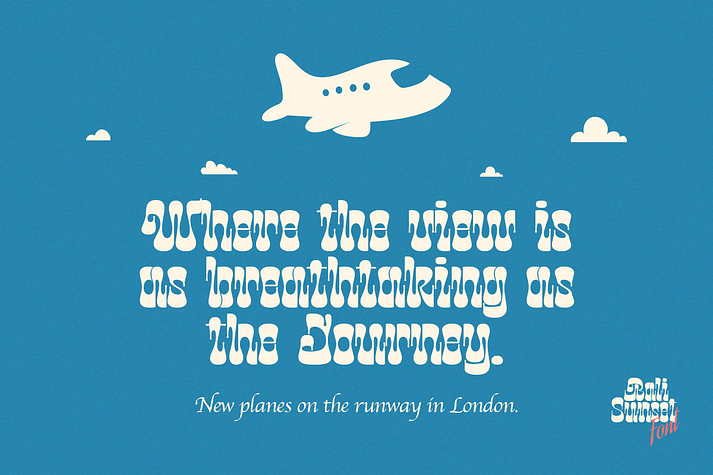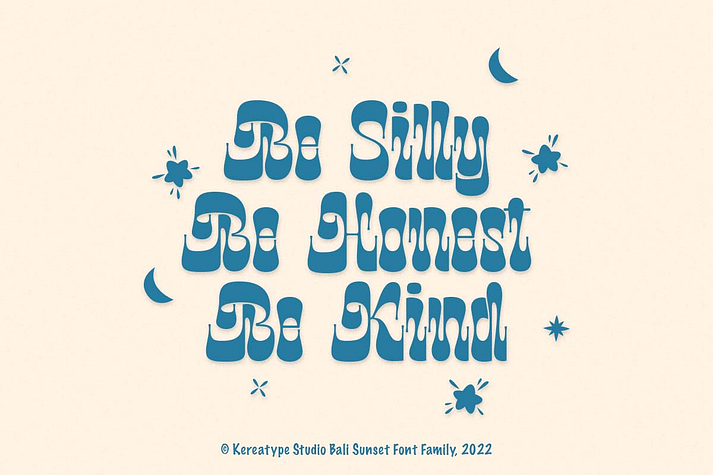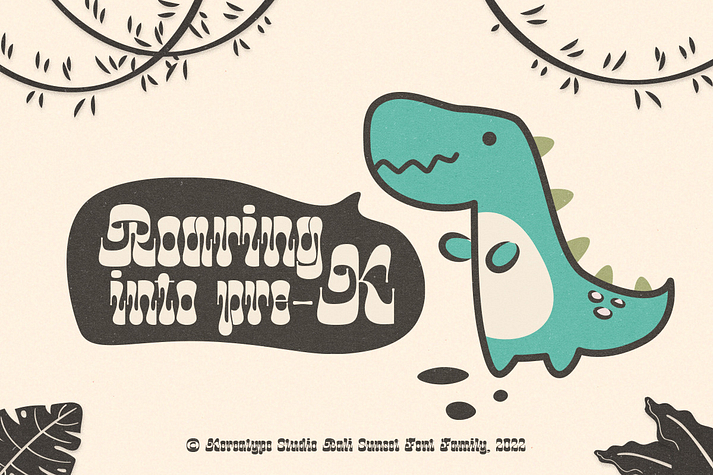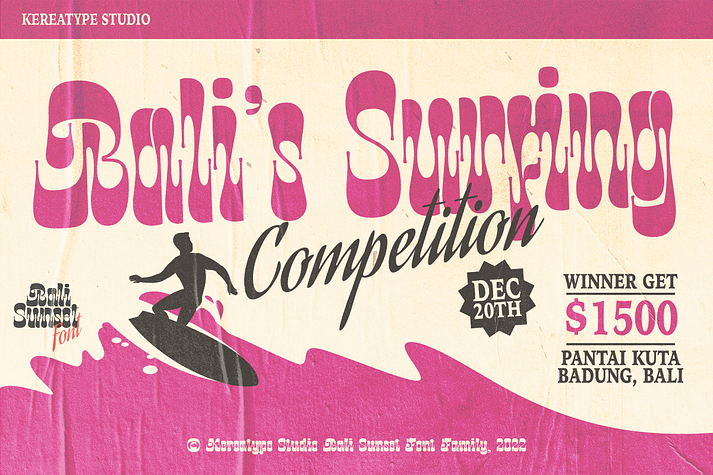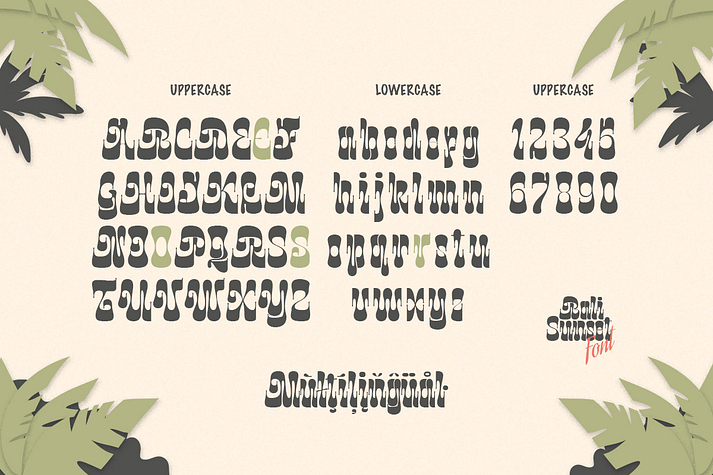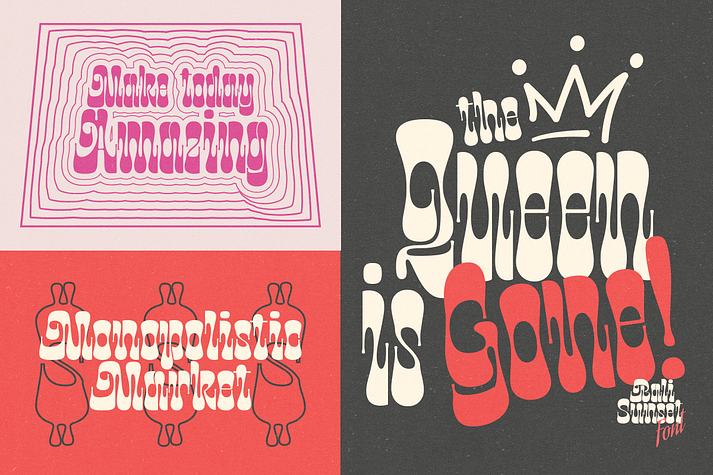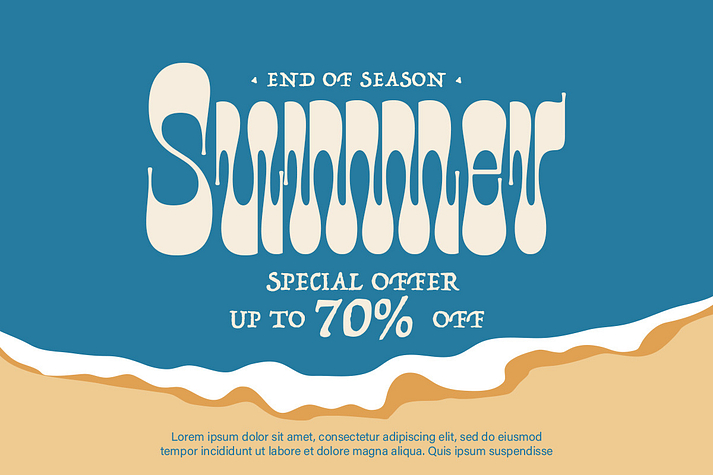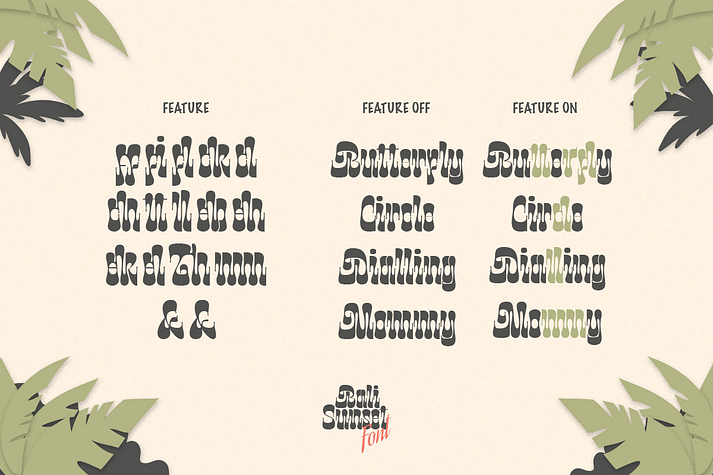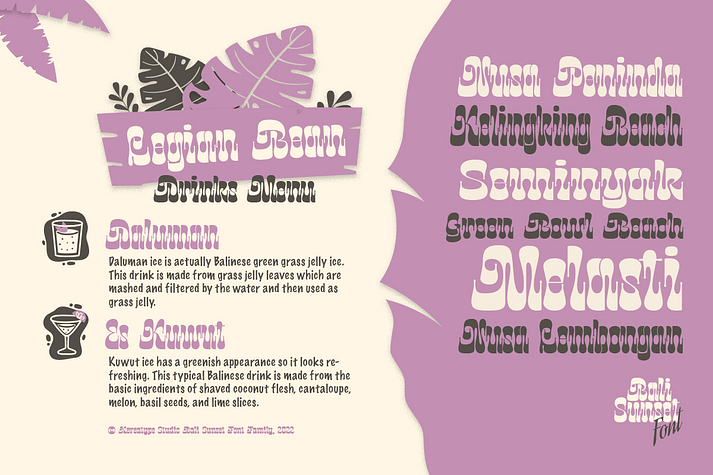
Bali Sunset
Bali Sunset is a font family. This typeface has nine styles and was published by Kereatype.
Bali Sunset is an Experimental and unique display font with reverse contrast. Bali Sunset font has 9 width font from Ultra Condensed to Ultra Expanded.
Bali Sunset Was inspired by Aksara Java letter and Art Nouveau style, it has a unique style with stylistic, alternates, and ligatures, and supports multilingual languages.
The organic feel of Bali Sunset evokes a psychedelic vibe that you can use to take your designs to a new level. The font is excellent for posters, flyers, apparel, quotes, greeting cards, product packaging, album covers, movies, and more.